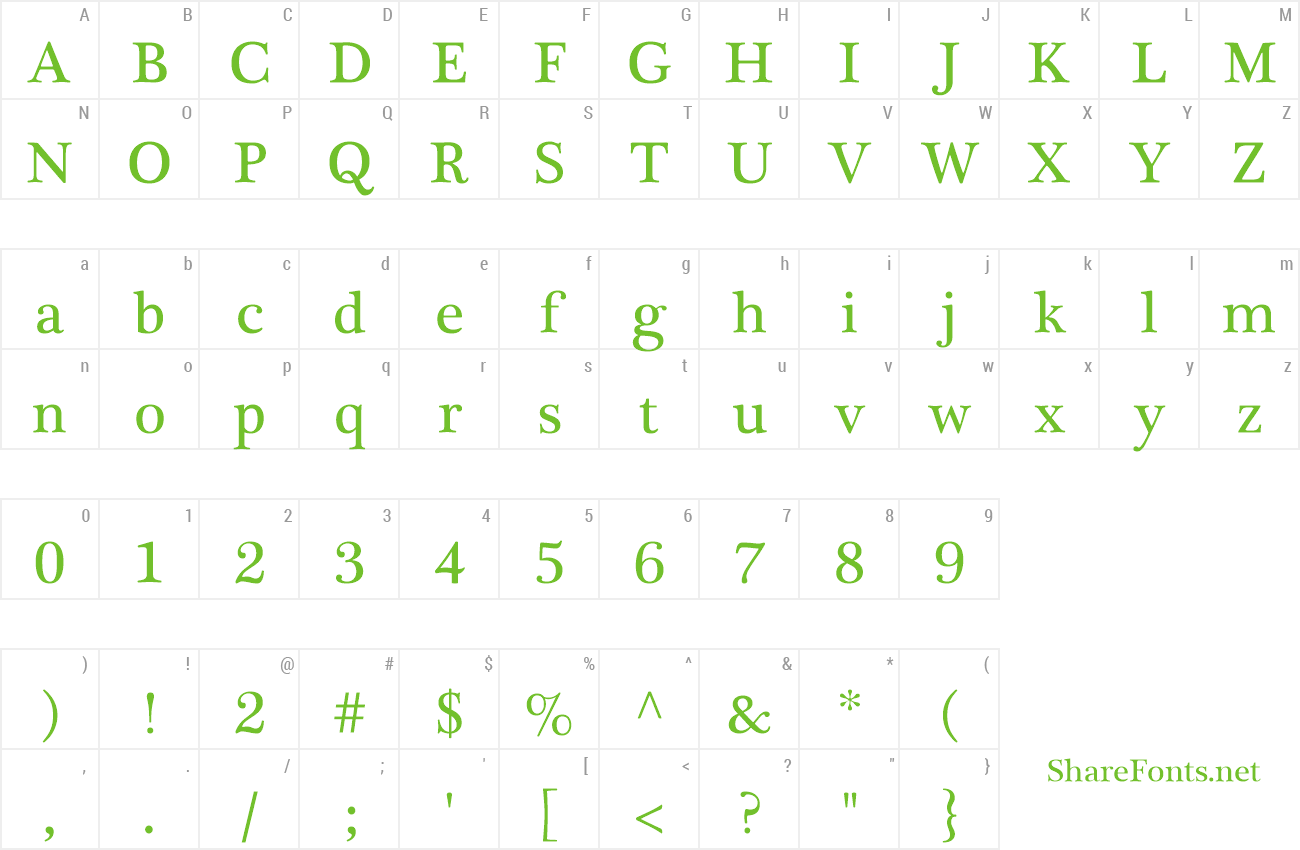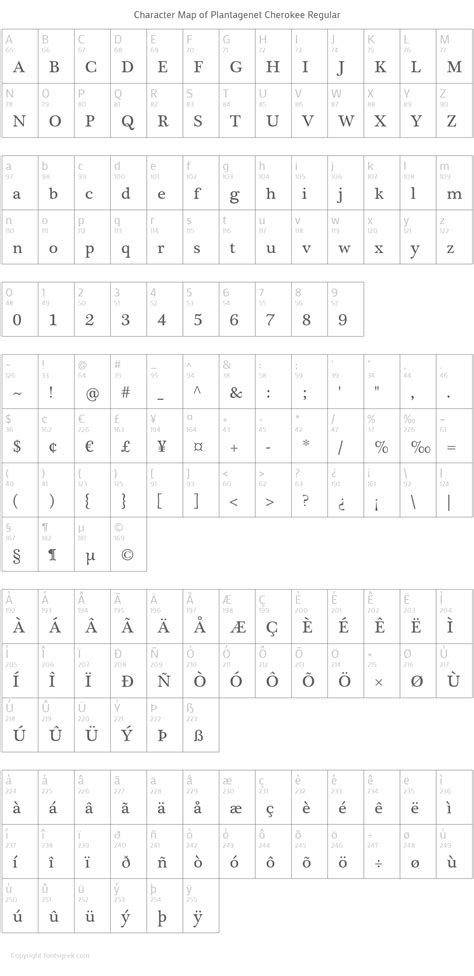
Plantagenet Cherokee Font
Plantagenet Cherokee Font - Web learn about the plantagenet cherokee font, a free fancy typeface designed by ross mills that can be used for various purposes. Web plantagenet cherokee font.
Web plantagenet cherokee font. Web learn about the plantagenet cherokee font, a free fancy typeface designed by ross mills that can be used for various purposes.
Web learn about the plantagenet cherokee font, a free fancy typeface designed by ross mills that can be used for various purposes. Web plantagenet cherokee font.
Web plantagenet cherokee font. Web learn about the plantagenet cherokee font, a free fancy typeface designed by ross mills that can be used for various purposes.
Web learn about the plantagenet cherokee font, a free fancy typeface designed by ross mills that can be used for various purposes. Web plantagenet cherokee font.
Web plantagenet cherokee font. Web learn about the plantagenet cherokee font, a free fancy typeface designed by ross mills that can be used for various purposes.
Web learn about the plantagenet cherokee font, a free fancy typeface designed by ross mills that can be used for various purposes. Web plantagenet cherokee font.
Web plantagenet cherokee font. Web learn about the plantagenet cherokee font, a free fancy typeface designed by ross mills that can be used for various purposes.
Web learn about the plantagenet cherokee font, a free fancy typeface designed by ross mills that can be used for various purposes. Web plantagenet cherokee font.
Web Plantagenet Cherokee Font.
Web learn about the plantagenet cherokee font, a free fancy typeface designed by ross mills that can be used for various purposes.